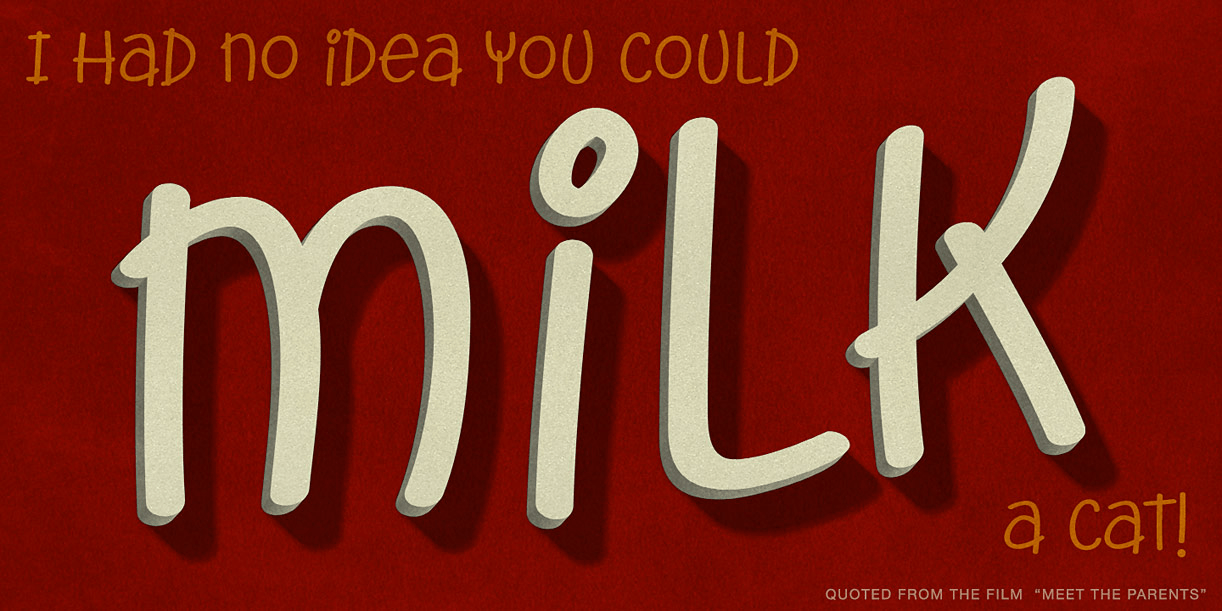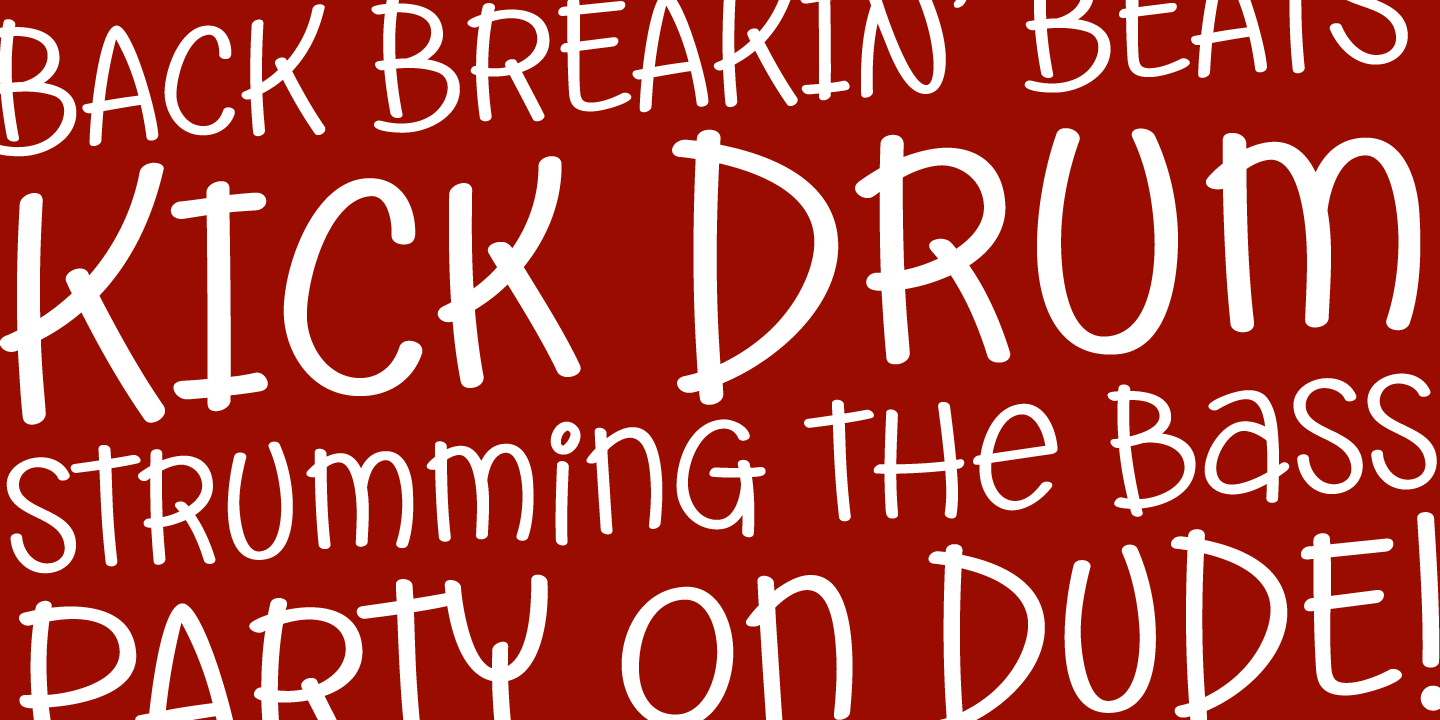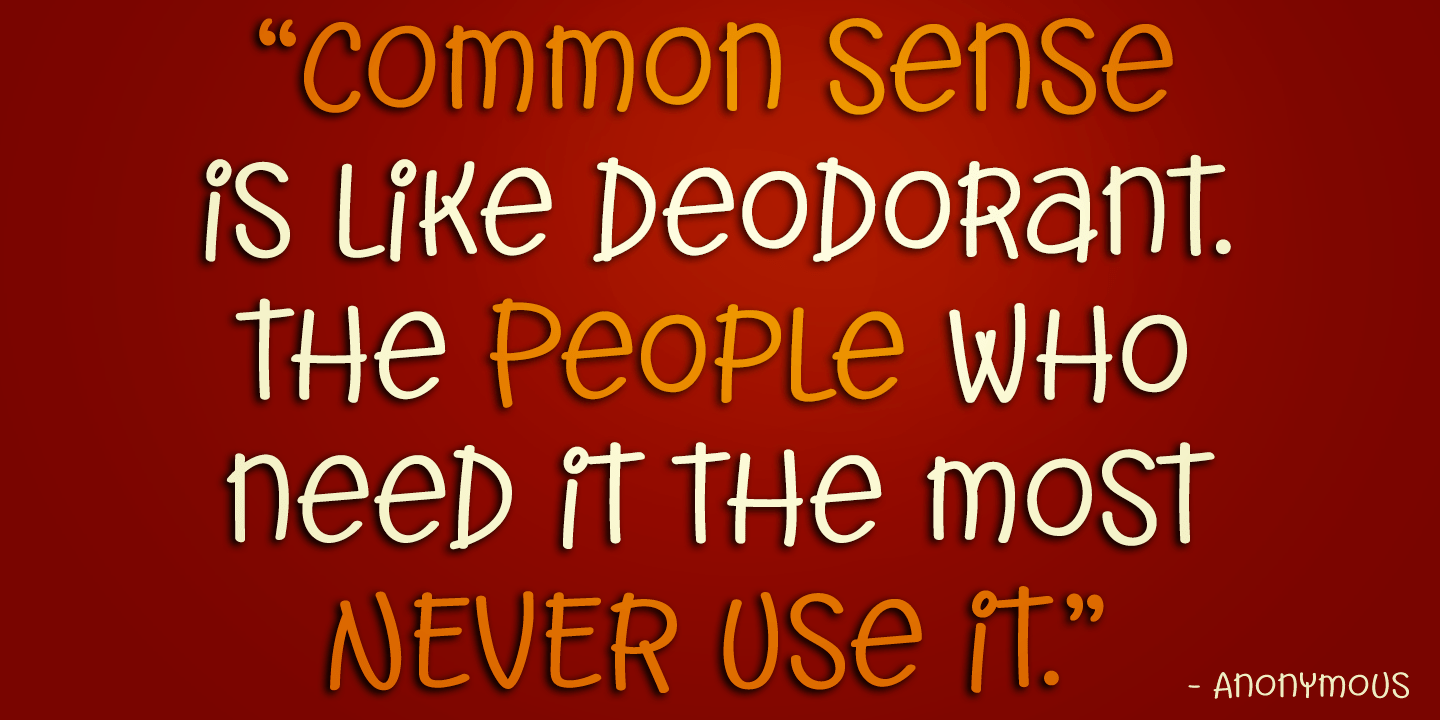
Roadie was inspired by a 1981 Hallmark card with lettering that was full of frolicking fun. Filled with a childish persona and a playful bounce, this Roadie has a lot to offer. As with some of my previous type designs, it is a typographic dance, wonderfully…